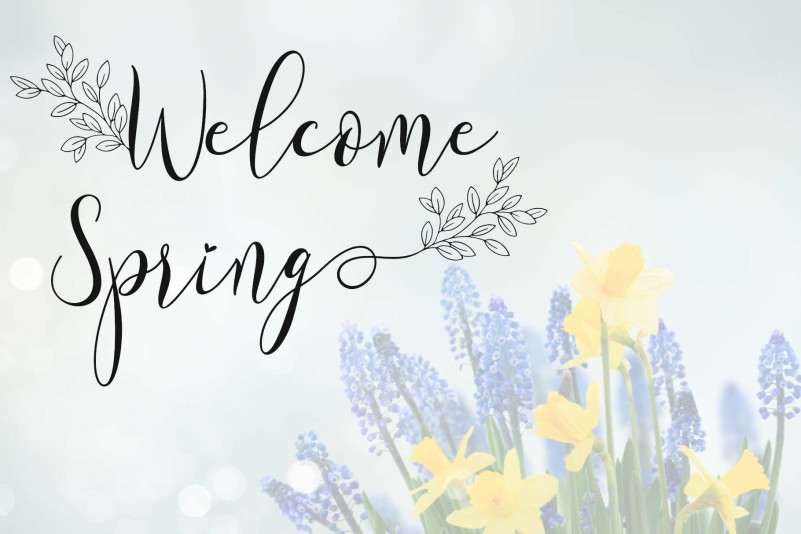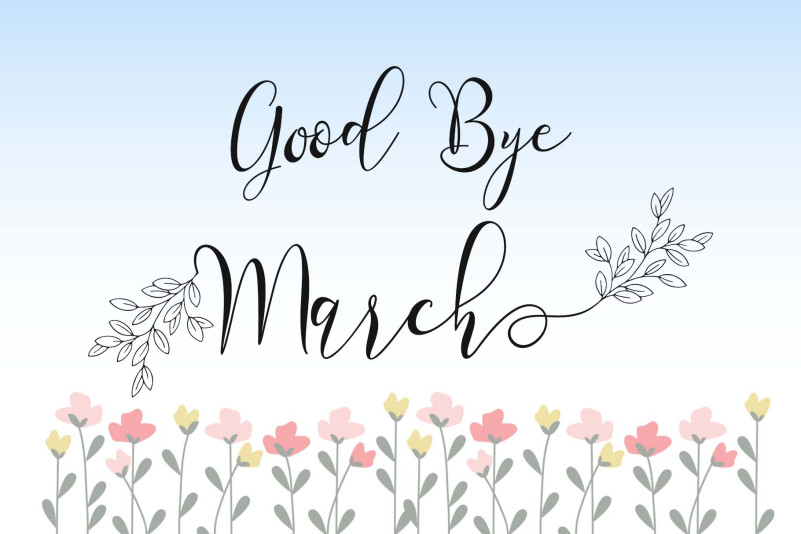
Spring Morning Font
Spring Morning Calligraphy Font is a beautiful and natural handwritten font. This font is decorated with unique leaves and twigs. Equipped with uppercase, lowercase, swashes, titling, alternates, ligatures, multilingual support, numerals, and punctuations. This font is perfect for weddings, spring, photography, vacations, holidays, and more.